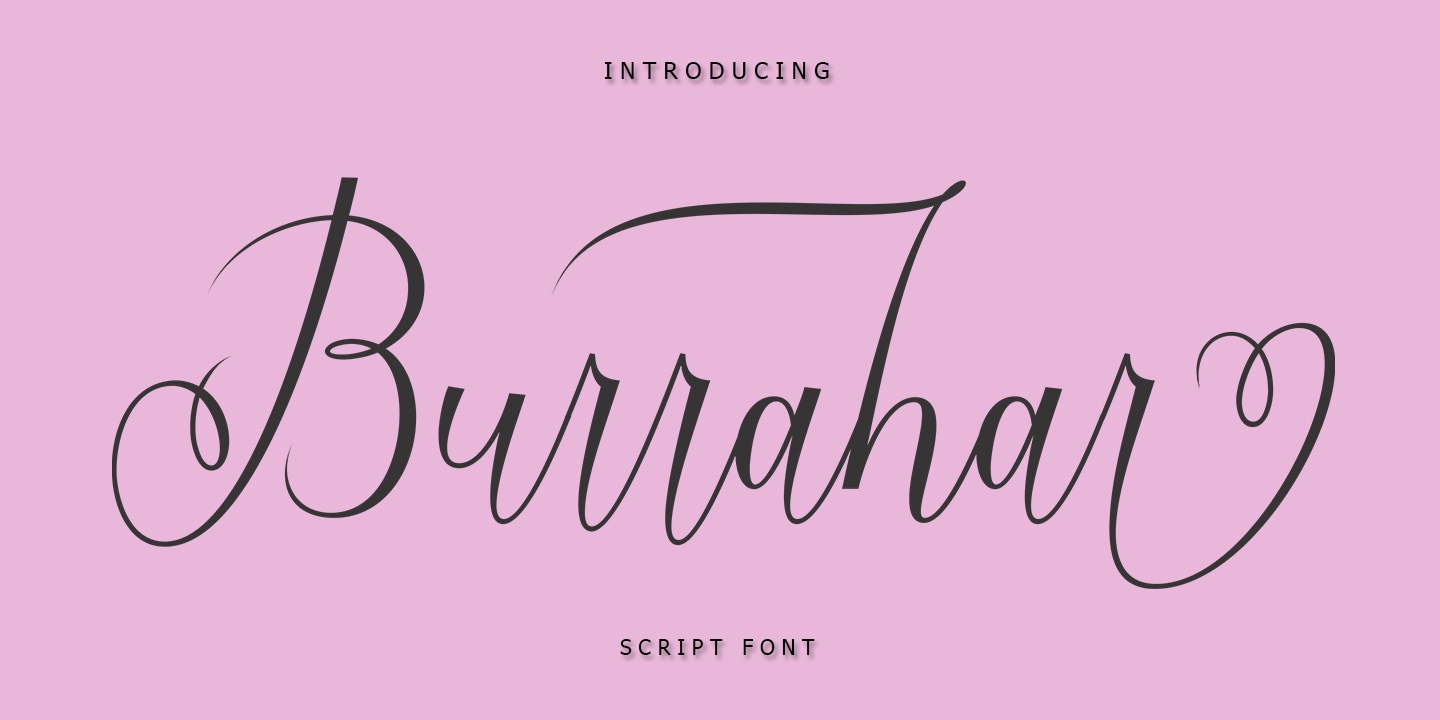
Burrahar Script Font
Burrahar Script Font is perfect for romantic wedding invitations, handwritten greeting cards, feminine branding projects, calligraphy artwork, boutique logos, personal stationery, love letters, social media quotes, beauty product packaging, and artisan craft labels.
Burrahar Script Font is exciting because it captures the authentic charm of handwritten calligraphy with its flowing, organic strokes and natural rhythm that creates intimate emotional connections between brands and audiences. Its graceful curves and expressive letterforms bring warmth and personality to designs, making every message feel personal and heartfelt.
The Burrahar Script Font family includes Regular weight, Bold variation, Swash capitals, Decorative flourishes, Alternative characters, Stylistic ligatures, Ornamental elements, and Connecting strokes, providing designers with extensive creative possibilities for personalized typography solutions and romantic design applications.
Burrahar Script Font Free Download offers designers an exquisite handwritten typography solution that combines artistic authenticity with professional quality. This beautiful script typeface features carefully balanced letterforms that mimic the natural flow of pen-and-ink calligraphy, creating designs that feel both sophisticated and approachably human in an increasingly digital world.
Whether you're designing wedding collections, developing feminine brand identities, creating personal correspondence materials, or producing artisanal product packaging, Burrahar Script Font delivers the perfect blend of elegance and intimacy. Its romantic character makes it particularly effective for businesses targeting women, couples, and audiences who value personal touch and authentic craftsmanship.
Perfect for wedding planners, stationery designers, boutique owners, and creative professionals specializing in feminine markets, this font provides the romantic foundation needed for memorable brand experiences. The script's versatility shines in both digital applications and traditional print media, maintaining its handcrafted appeal across all platforms.
Burrahar Script Font includes comprehensive character support, multilingual capabilities, and refined spacing that ensures beautiful results in romantic design applications. Its authentic handwritten approach makes it invaluable for brands seeking to communicate genuine emotion and personal connection. Create heartfelt designs with Burrahar Script Font Free Download and discover typography that truly speaks from the heart.